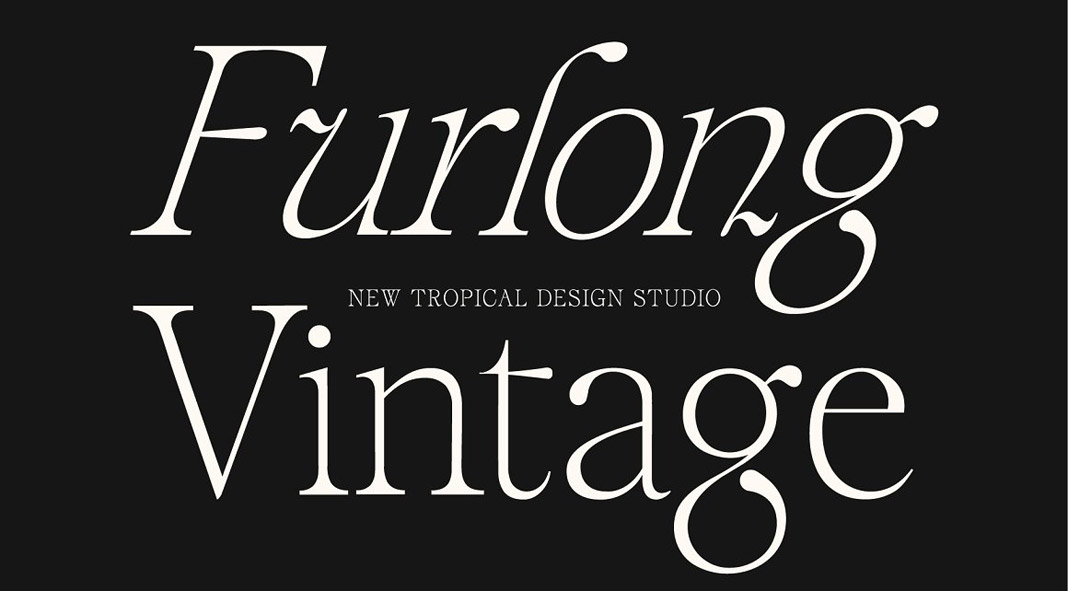
Discover Furlong Vintage, a classic display serif font with an elegant but friendly style.
Damn, this is a beauty, isn’t it?! Vintage serif fonts are currently quite popular among designers and the Furlong Vintage font by New Tropical Design is a particularly beautiful representative of this genre. Its class comes from minimalist ornate flourishes and unique letter shapes. The typeface is a great choice for fashion work, magazines, or just classy logo designs. Just click on the following link to learn more about all the typographic features of the Furlong Vintage serif font.